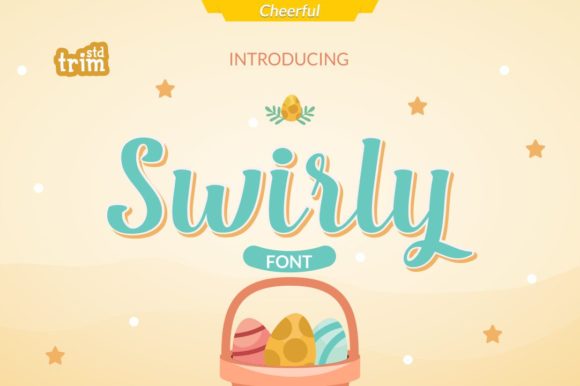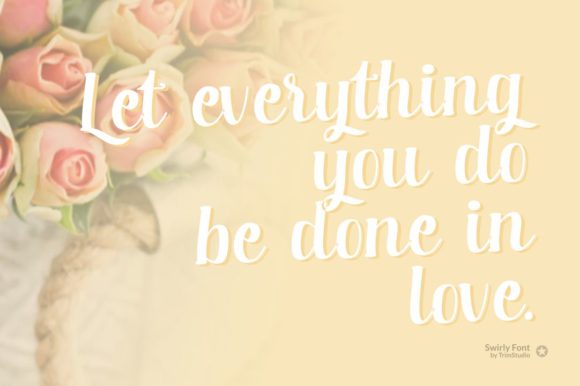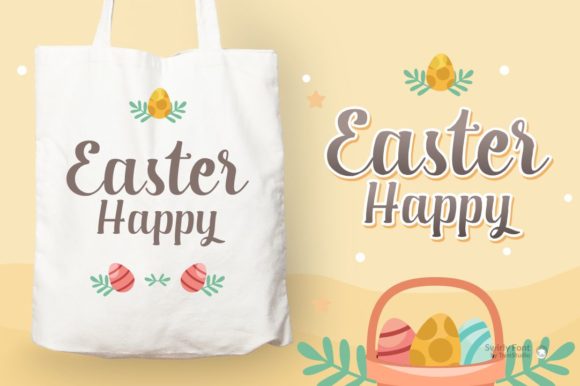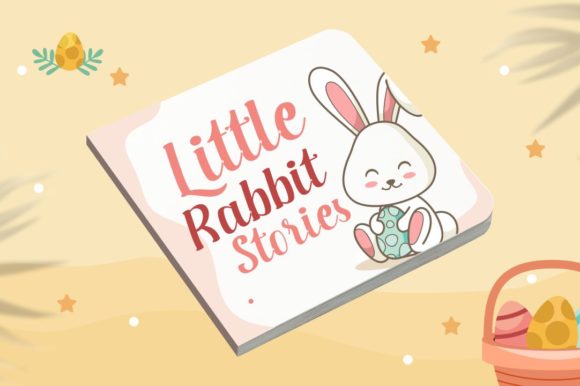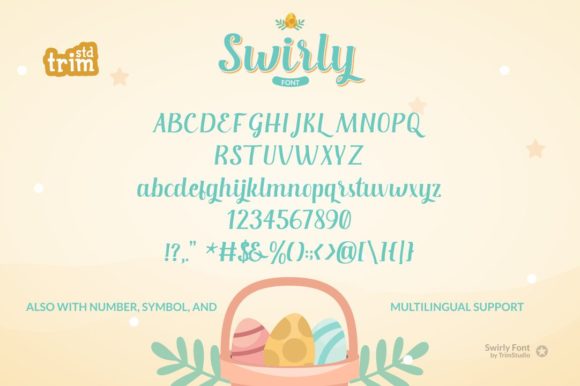
Swirly Font
About Swirly Font
Swirly is a playful handwritten font that is great for sharing love. It is perfectly suited for a wide variety of crafting projects!